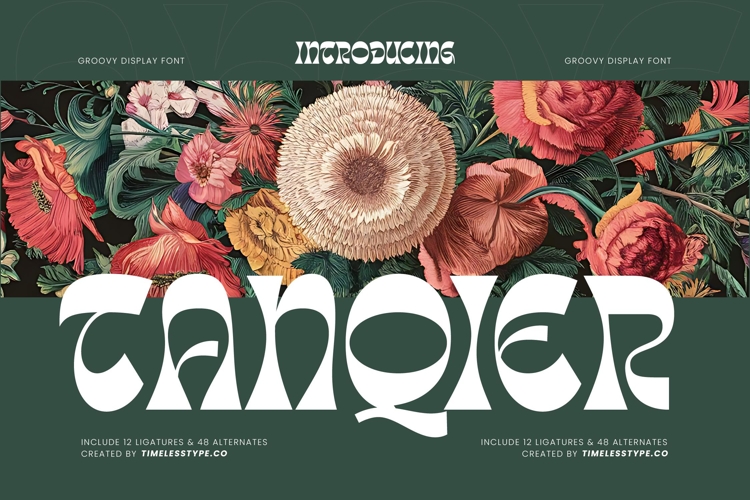
Tanqier - Groovy Display Font
Tanqier is a groovy display font that blends retro flair with bold modern aesthetics. Its curved strokes, unique proportions, and funky alternates give it a playful yet stylish character, perfect for projects that want to capture attention with a mix of nostalgia and contemporary appeal. Designed with 12 ligatures and 48 alternates, Tanqier provides creative flexibility, allowing designers to craft expressive and dynamic typography that feels distinctive and memorable.
This font shines in headline typography, where its groovy forms and decorative alternates make an immediate impression on posters, album covers, banners, and editorial layouts. In branding and logo design, Tanqier communicates creativity and originality, making it a strong choice for lifestyle brands, fashion labels, music projects, and boutique businesses that want to stand out with personality and flair. Its bold retro look also makes it an excellent option for packaging design, particularly for beverages, artisanal goods, and youth-oriented products where typography needs to be vibrant and iconic.
Tanqier thrives in advertising campaigns, event promotions, and festival posters, where its alternates and ligatures add individuality and groove to bold messaging. For social media content and digital platforms, the font ensures designs feel fresh and trendy, resonating with audiences who love vintage-inspired style with a modern twist.
With multilingual support, Tanqier adapts seamlessly to global projects, making it versatile for international use.
Ultimately, Tanqier is more than a groovy font—it is a statement of playful elegance and retro-modern creativity. Whether used in headlines, branding, packaging, or advertising, it ensures every project radiates energy, personality, and unforgettable style.